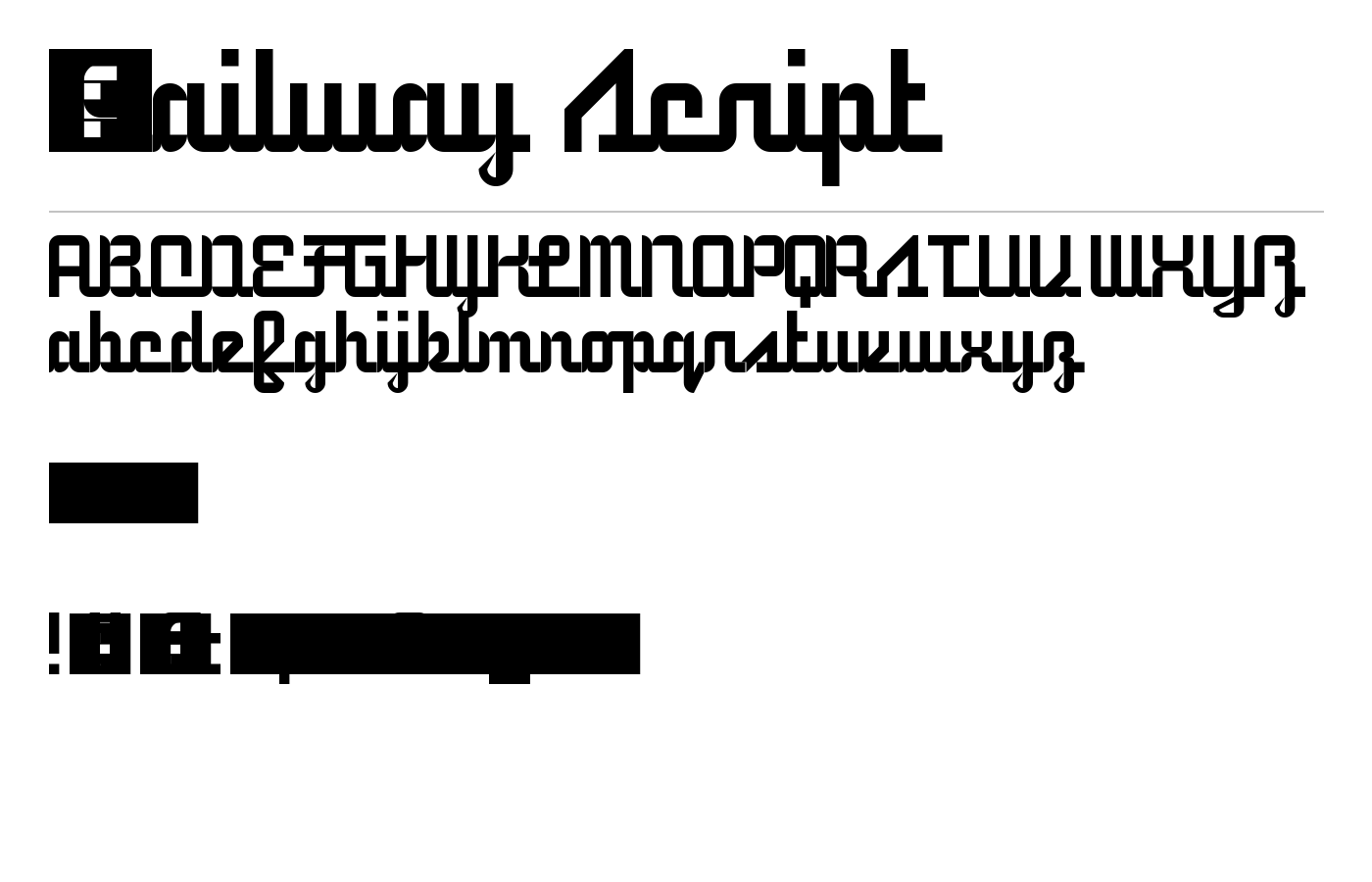
5Railway Script is a bold and condensed script font with a unique geometric, mechanical feel. Its connected strokes and sharp angles create a modern, industrial look that blends retro and futuristic styles, making it ideal for distinctive logos, headlines, and branding that seek a strong, edgy character. This font works best in creative design projects where a dynamic and unconventional script style can stand out.
5Railway Script Font
About 5Railway Script Font